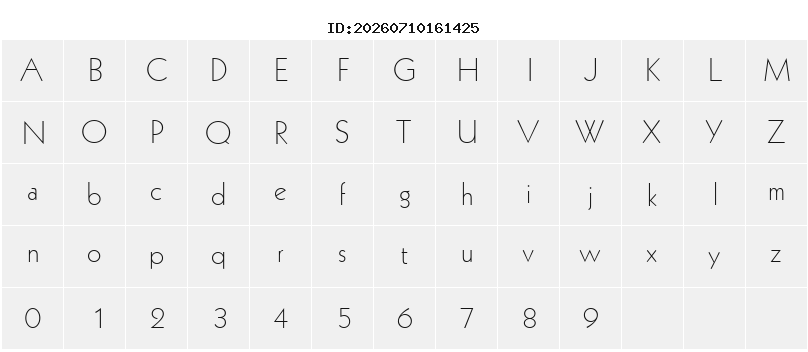
• Font Name: Geometr231 Lt BT
• Font Style: Light
• Font ID: Geometric 231 Light
• Full Font Name: Geometric 231 Light BT
About Geometr231 Lt BT.ttf
Geometr231 Lt BT.ttf is a modern, elegant sans-serif font designed for ultimate readability and visual harmony. Perfect for branding, headlines, web design, and print materials.